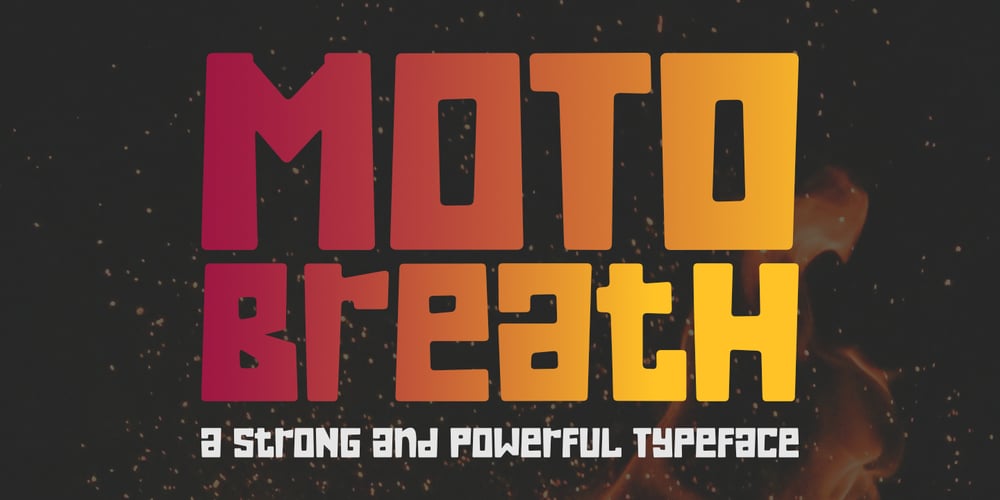
Motobreath Font Family was designed by Aldy Sidik and published by Epiclinez. Motobreath contains 1 styles and family package options. Introducing Motobreath, the bold typeface that is sure to turn heads. This font is inspired by the energy and power of hard rock music and the thrill of the racing car scene. With Motobreath as your secret weapon, you’ll instantly add excitement and attitude to any design project. The simple angles yet energetic lines give this typeface an unmistakable edge that sets it apart from other fonts on the market. Whether you’re looking to create a bold headline that demands attention or a logotype that conveys strength and power, Motobreath has got you covered.Motobreath features : Standard Latin Numbers, symbols, and punctuations Multilingual Support. Fully accessible without additional design software Simple Installations Works on PC & Mac Thank You.